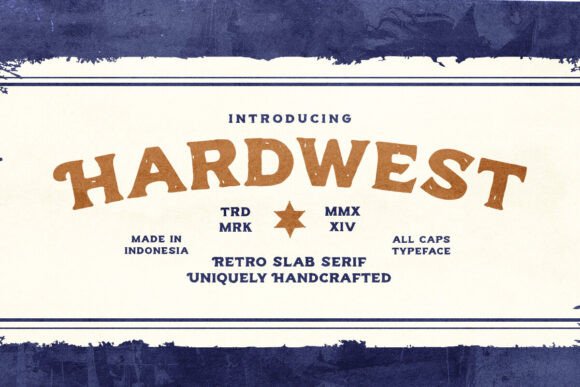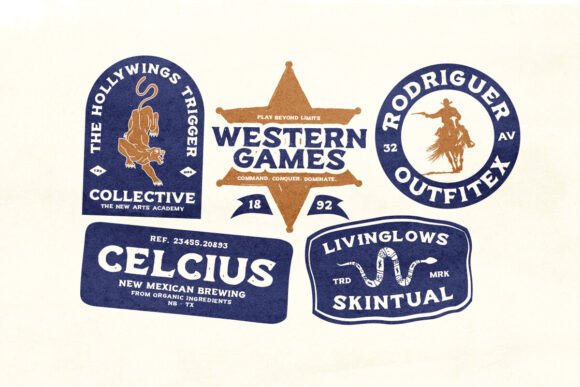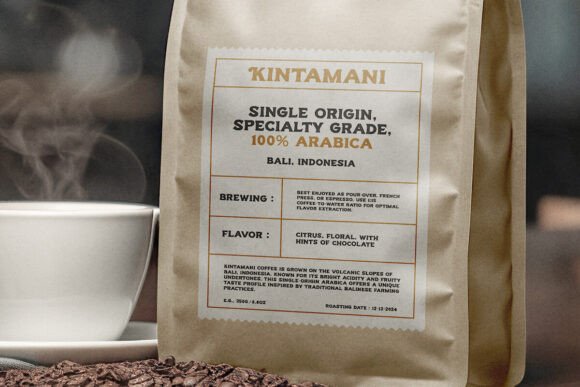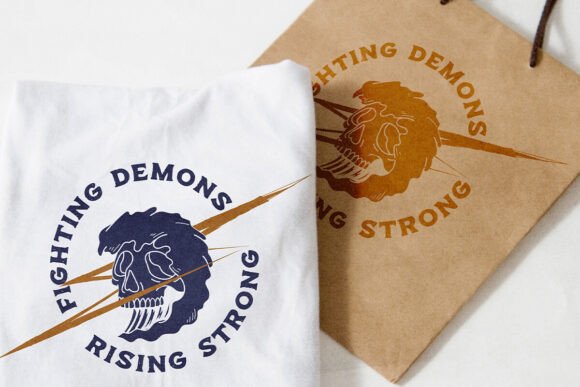
Hardwest Font: Retro Slab Serif for Authentic Logo Design & Branding
About the Hardwest Font
Experience the unique personality of Hardwest Font, a font designed for impact. Hardwest is a retro slab serif with rough and handcrafted looks. You can use this fonts for many occasions such as logotype, quotes or any projects that require hipster and cowboy vibes. With different uppercase and lowercase, you can choose what you want or combine them in a word. This fonts also support multi language!
Hardwest excels in headlines, short text blocks, and branding applications where a strong, retro aesthetic is desired. Its rugged character makes it ideal for projects evoking themes of the American West, vintage Americana, or handcrafted goods. Avoid using it for large bodies of text or UI elements; its slab serifs and rough texture can hinder readability in extended passages.
The font’s personality is bold and rugged, yet undeniably stylish. It projects a sense of authenticity and vintage appeal.
Pairing Hardwest with a clean sans-serif like Futura or a more modern geometric sans-serif will create a strong contrast, highlighting its unique character. For a softer contrast, a neutral serif like Garamond or a script font with a slightly informal feel could be used.
Hardwest Font Usage Examples
Hardwest Font Example